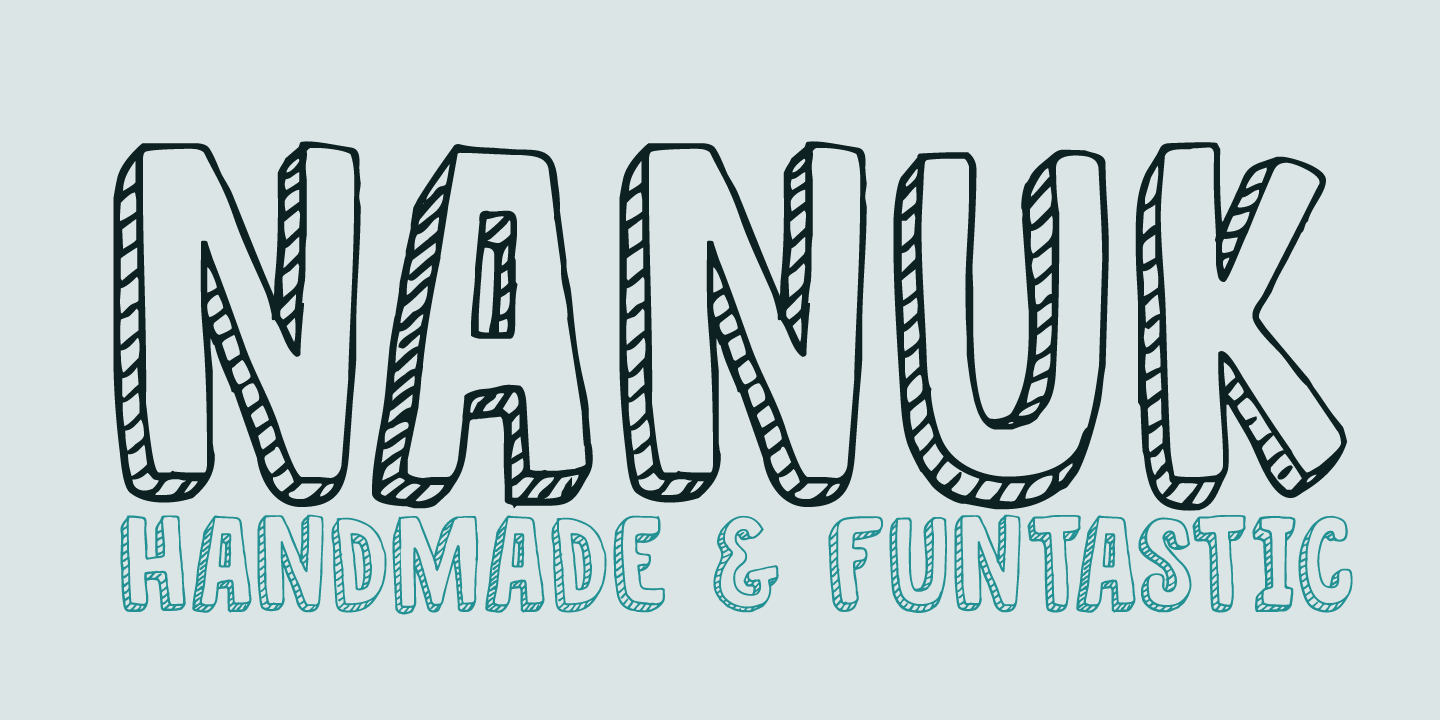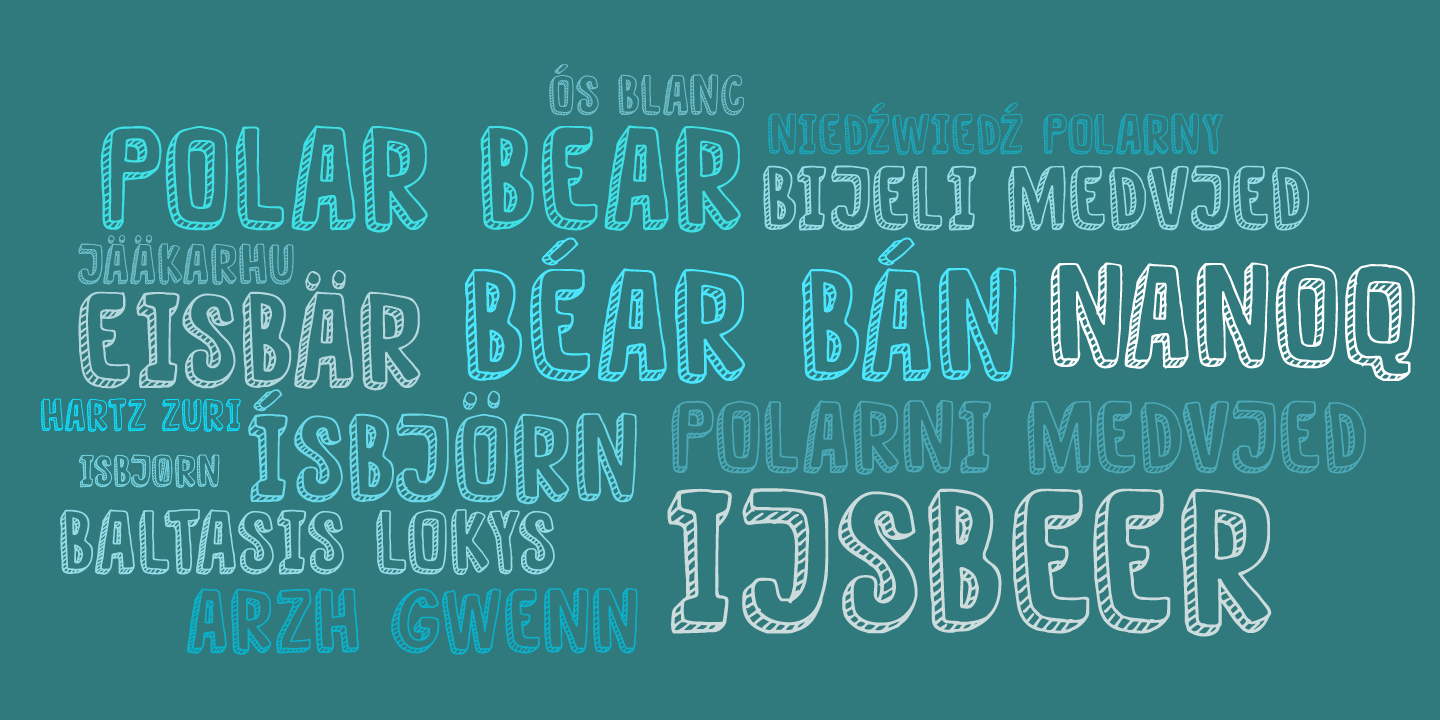
Nanuk
Nanuk in the Inuit language means polar bear. My 2 year old son's favorite animal is the polar bear and he loves to watch the ?Earth? DVD.
Nanuk font is an all caps, outlined affair, ideal for use in posters and covers. It comes with a bear-load of diacritics!